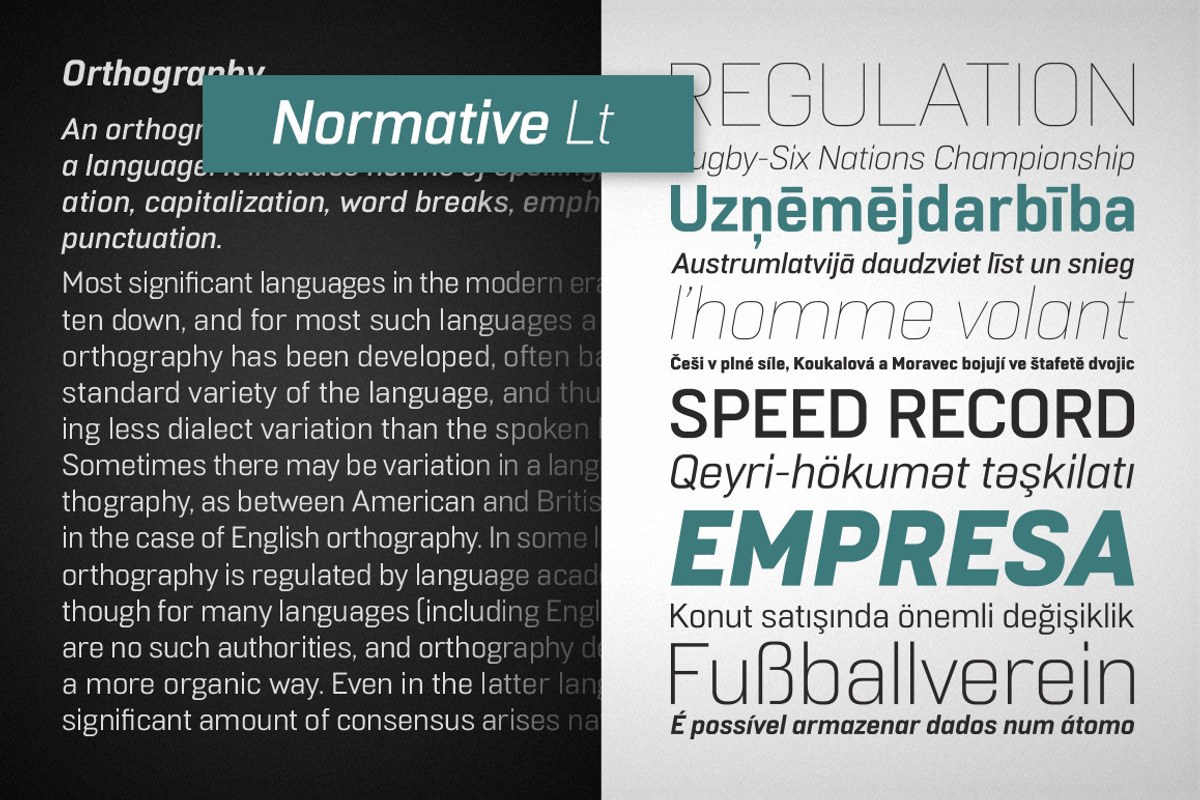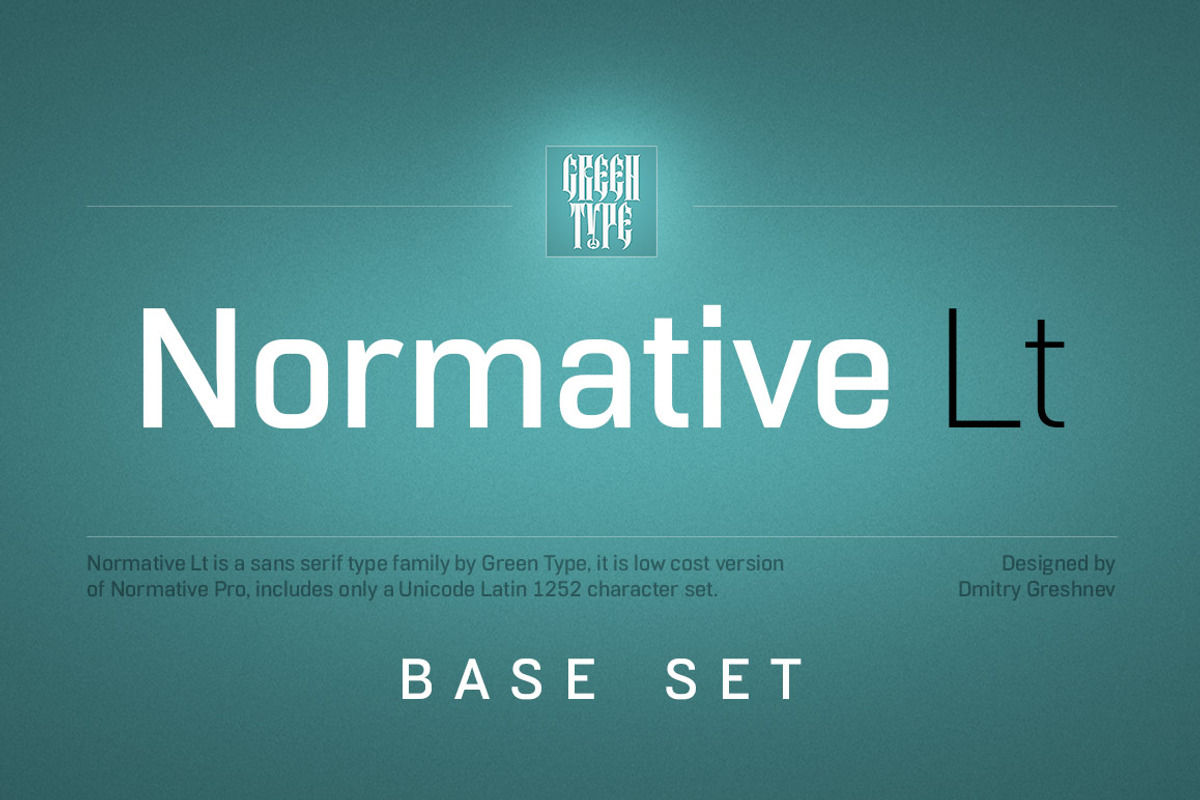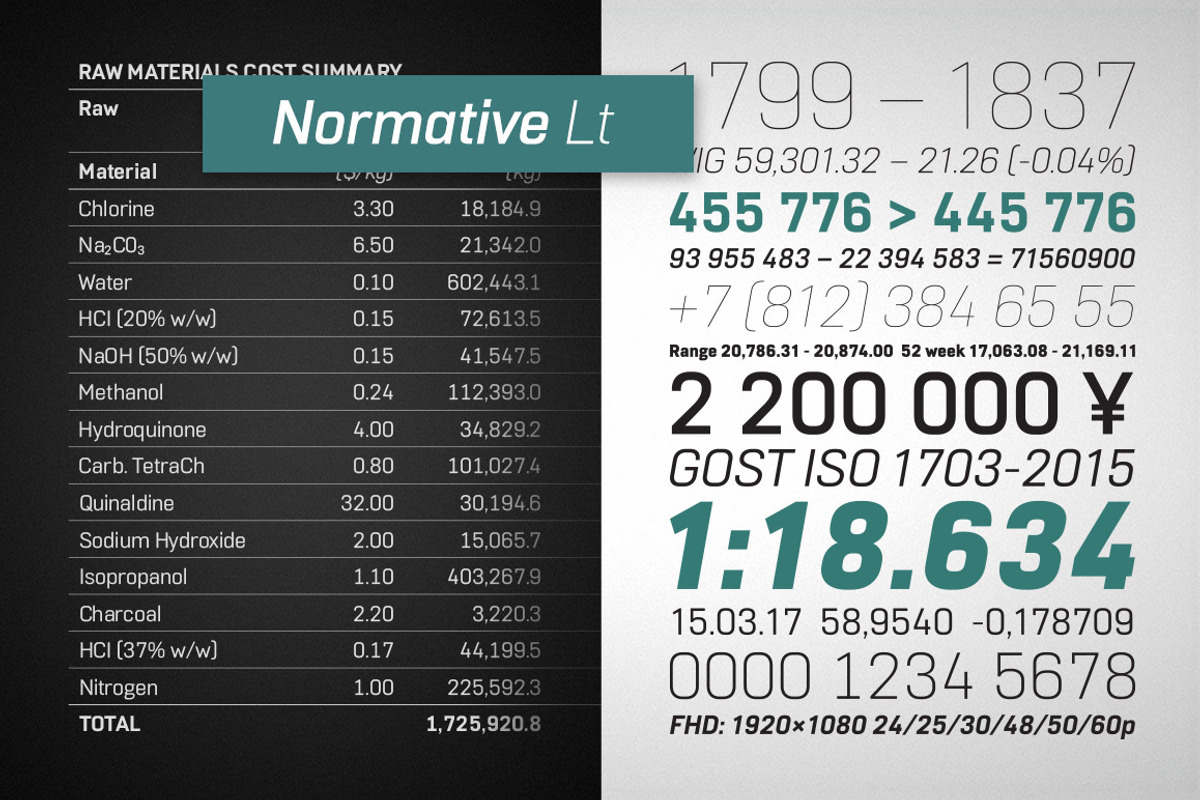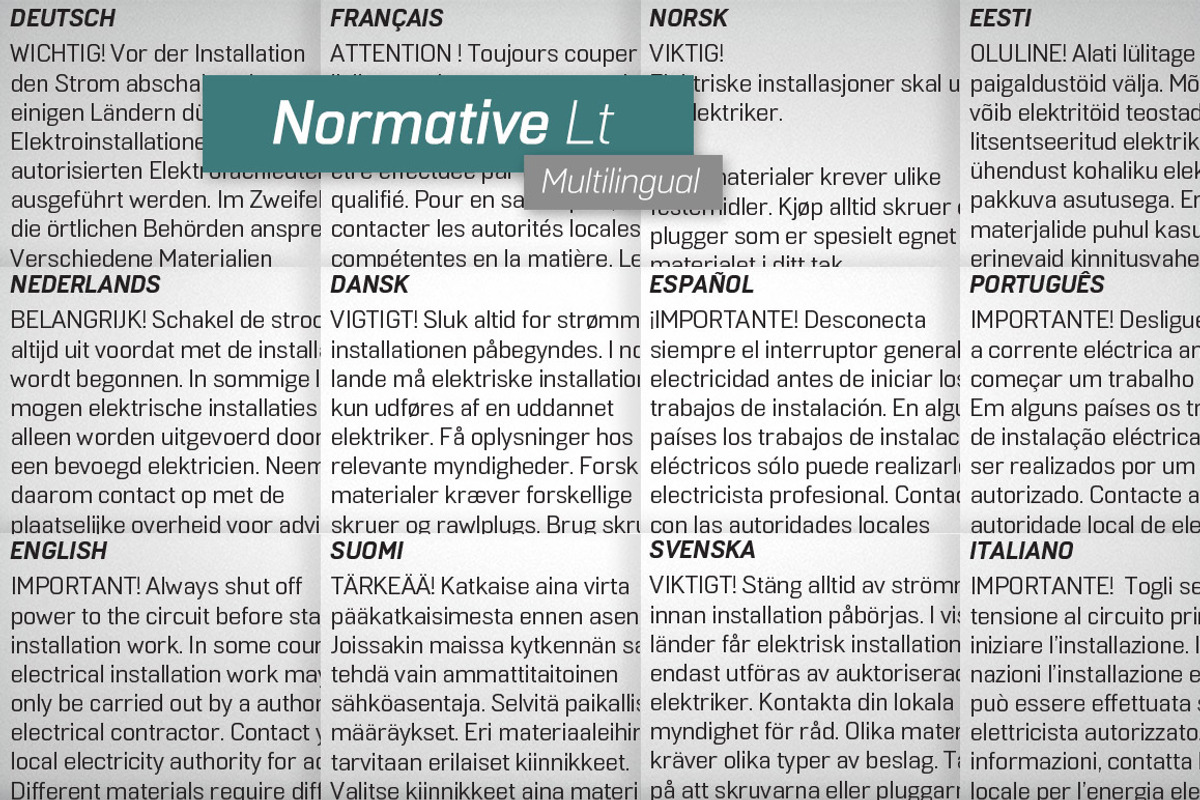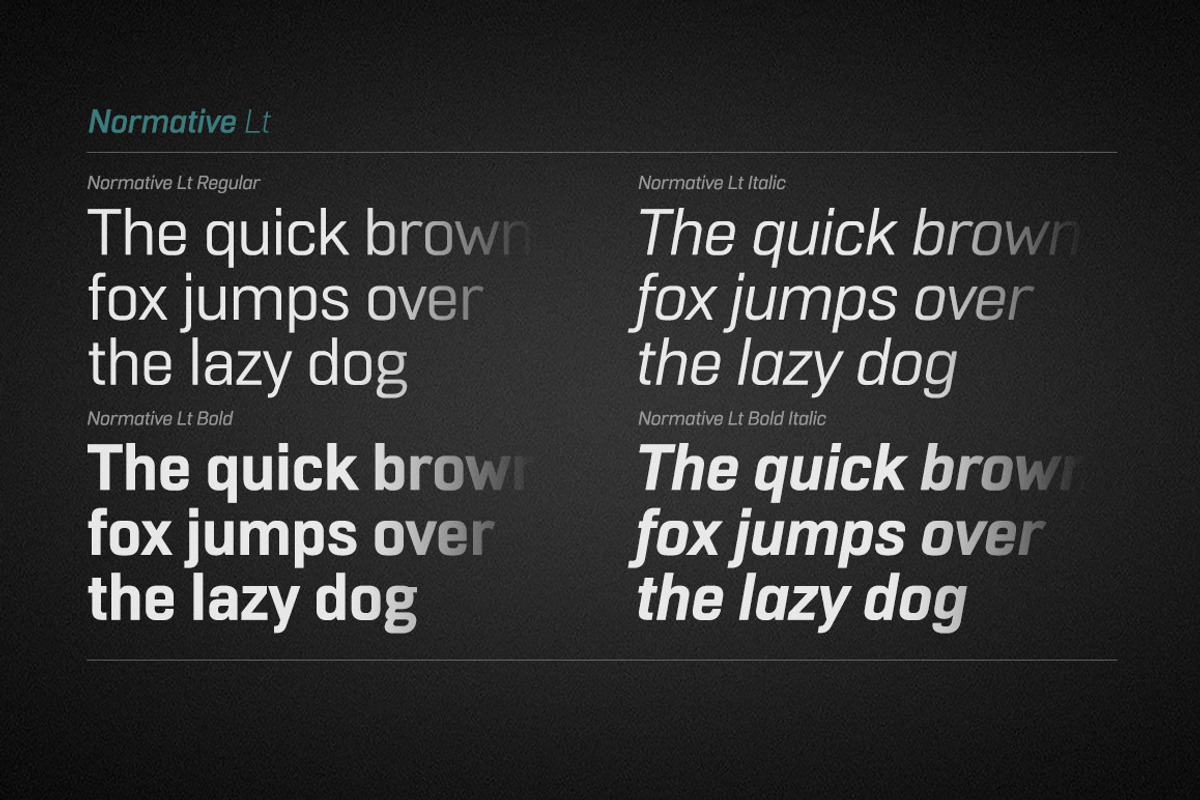
Normative Lt is a sans serif type family by Green Type, a low cost version of Normative Pro, includes only a Unicode Latin 1252 character set. Normative Lt is a font with wide sphere of application, legible from very small size to very large ones. Can be used both in technical documentation, office work, business communication, as well as in advertising, visual communication, magazines and posters, in branding and packaging.